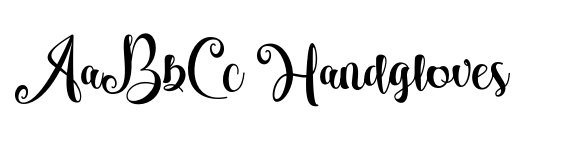
Alista
by Fran Studio
The Alista Font Family was designed by Niza Fahmi and published by Fran Studio. Alista contains 2 styles and family package options. More about this family
Alista is a lovely, modern calligraphic script. It features dynamic and pretty swashes and can be used for many purpose, such as titles, signatures, logos, wedding invitations, letterhead, signage, labels, newsletters, posters, badges, etc.
Alista features OpenType, including the initial and terminal letters, ligatures and International support for most Western languages ​​included.
Designers: Niza Fahmi
Foundry: Fran Studio
Fran is an independent creative studio dedicated to the art of lettering, specializing in the creation of hand-drawn letterforms. The studio employs a variety of tools—such as coarse brushes, markers, metal-nib pens, brush pens, and Chinese ink—to produce unique hand-lettered designs and textured fonts. Through these works, Fran helps designers, brands, and publishers elevate their visual identities with memorable typography that possesses a distinctive expressive quality.